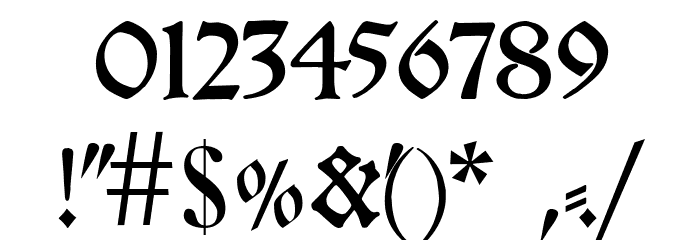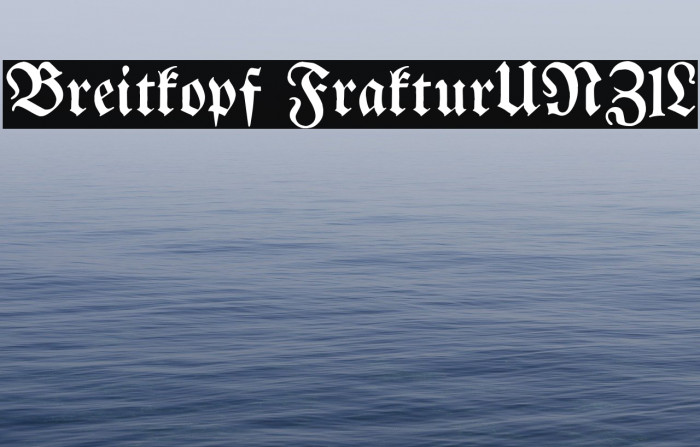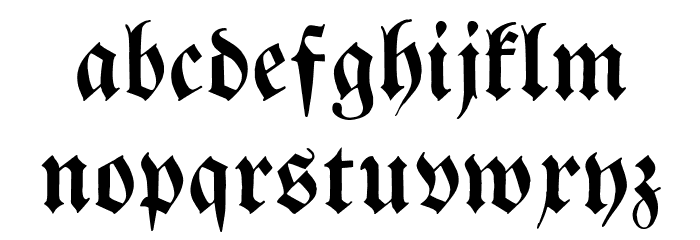
Breitkopf FrakturUNZ1L Font
Breitkopf FrakturUNZ1L Description
This font embodies the traditional and ornate characteristics of blackletter typefaces, featuring intricate and decorative strokes that are reminiscent of medieval script. The uppercase letters are bold and elaborate, with sharp angles and flourishes that give them a distinct, historical appearance. The lowercase letters maintain a similar style, with a slightly more condensed form that enhances readability while preserving the decorative elements. The numerals are consistent with the overall style, featuring angular lines and a bold presence. Special characters are designed with the same attention to detail, ensuring a cohesive look across all glyphs. This font is ideal for projects that require a touch of elegance and historical flair, such as invitations, certificates, or branding for luxury products.
A traditional blackletter font with ornate, medieval-inspired strokes and bold, decorative characters from Uncategorized fonts.
- Overall Style: Vintage